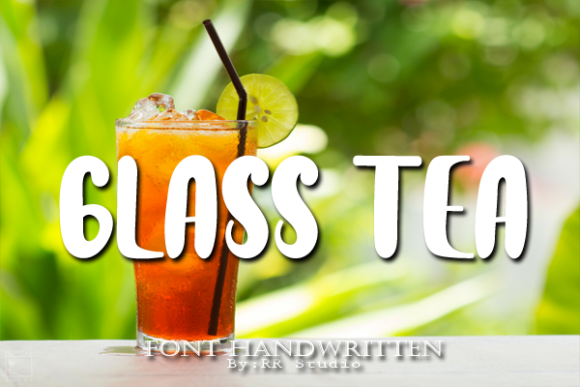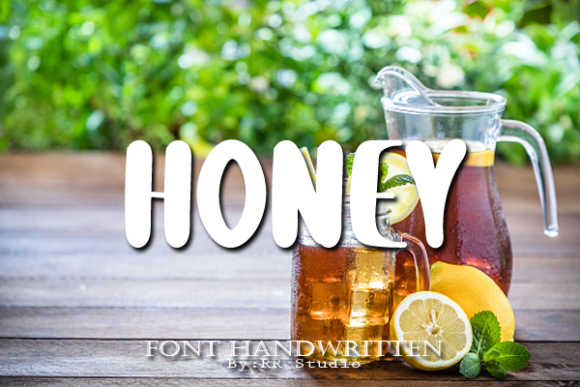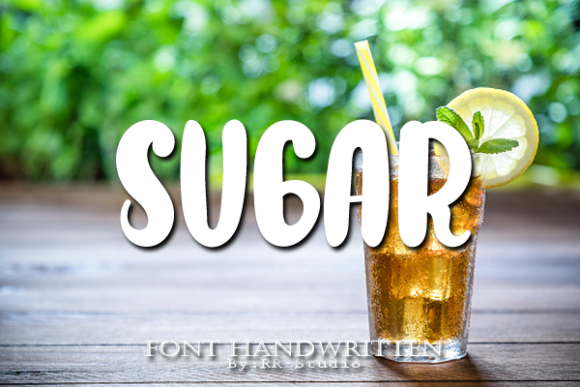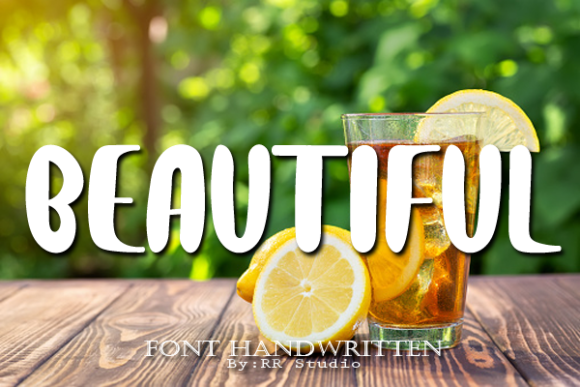
Lemon Tea Font
About Lemon Tea Font
Lemon Tea is a delightful and charming handwritten font that radiates a sense of warmth and approachability. With its friendly and unique style, this font is designed to capture hearts and become a beloved choice for a wide range of creative projects.
The playful and inviting nature of Lemon Tea makes it a perfect fit for various design applications. Its carefully crafted characters add a touch of authenticity and personalization to your work, allowing you to connect with your audience on a deeper level. Whether you’re working on branding, logos, packaging, invitations, or any other creative endeavor, Lemon Tea has the potential to elevate your ideas to new heights.
The font’s distinctive strokes and curves give it a one-of-a-kind appearance that stands out and captures attention. Its versatility allows it to adapt seamlessly to different design contexts, making it suitable for both digital and print materials. From social media graphics to merchandise designs, Lemon Tea can infuse your projects with a sense of character and originality.
Lemon Tea’s handwritten charm lends a sense of authenticity and human touch to your designs, fostering a connection with your target audience. Its friendly demeanor and approachable style evoke feelings of comfort and familiarity, making it a wonderful choice for projects that aim to create a positive and welcoming atmosphere.
Furthermore, the unique character of Lemon Tea makes it an excellent tool for adding a personal touch to your creative work. Its potential is boundless – from creating eye-catching headlines to crafting memorable quotes, Lemon Tea can be the secret ingredient that turns your ideas into a true masterpiece.
Incorporating Lemon Tea into your projects is a surefire way to infuse them with a sense of joy, creativity, and individuality. This font’s ability to bring a smile to your audience’s faces and leave a lasting impression is what sets it apart as a true favorite among designers and creators alike.